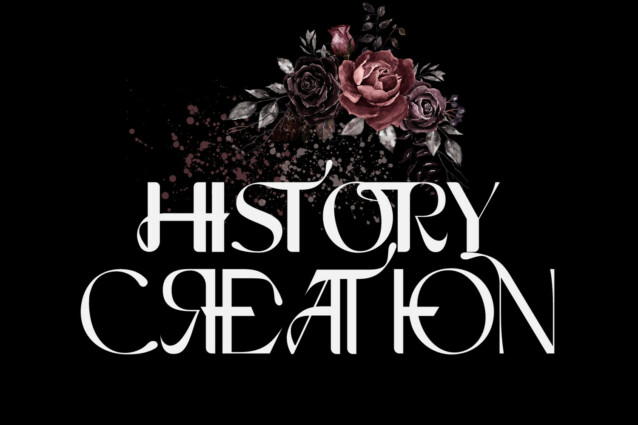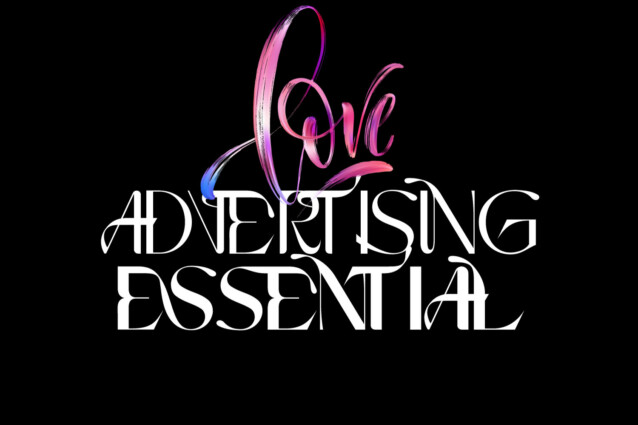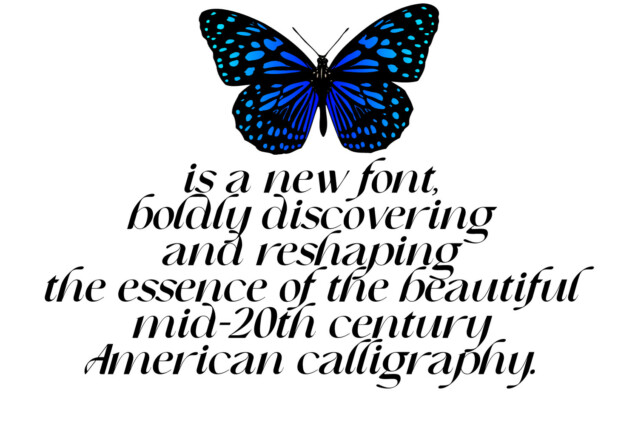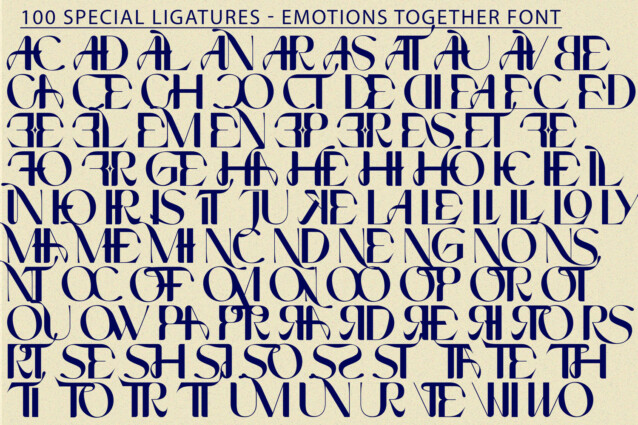
Emotions Together Font is an elegant sans serif font. Simple letter shapes with playful ligatures, keeping its legibility high. It’s a very versatile font that works great in large and small sizes. Perfect for editorial projects, Logo design, Clothing Branding, product packaging, magazine headers, or simply as a stylish text overlay to any background image.
CHANGES MODERN was built with OpenType features and includes 100 ligatures, alternate, numbers, punctuation, and it also supports other languages.
AC AD AL AN AR AS AT AU AV BE CA CE CH CO CT DE DI EA EC ED EE EL EM EN EP ER ES ET FE FO FR GE HA HE HI HO IE IC IL IN IO IR IS IT JU KE LA LE LI LL LO LY MA ME MI NC ND NE NG NO NT NS OC OF OM ON OO OP OR OT OU OW PA PR RA RD RE RI RO RS RT SE SH SI SO SS ST TA TE TH TI TO TR TT UM UN UR VE WI WO